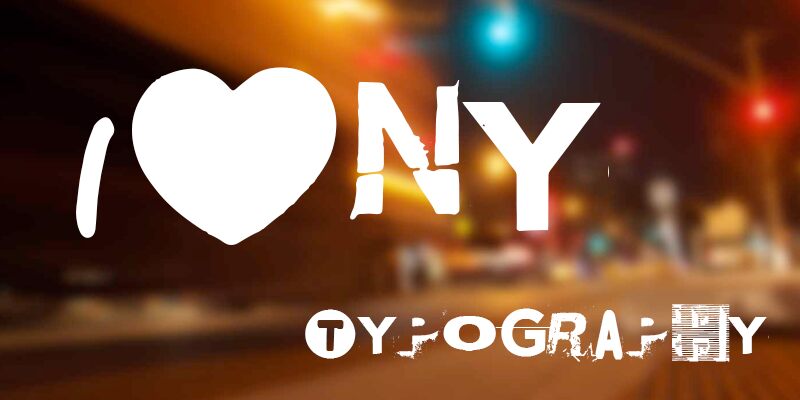
NYC ABC is a bold, distorted display font that captures the energy and character of New York City. With its rough, drop-cap aesthetic, the letters of this typeface were inspired by the urban landscape, each glyph a unique interpretation of the sights and sounds encountered on the streets of the Big Apple.
Designed by Hans Gerhard Meier during a visit to the city, this font exudes a raw, typographic expression that lends itself well to a variety of design applications, from eye-catching headlines to dynamic branding.
Its striking visual impact makes NYC ABC an excellent choice for projects seeking to convey a sense of the unrestrained and the unconventional.
NYC ABC Regular is a font by Fontourist, designed by Hans Gerhard Meier after walking the streets of NYC in 2014.